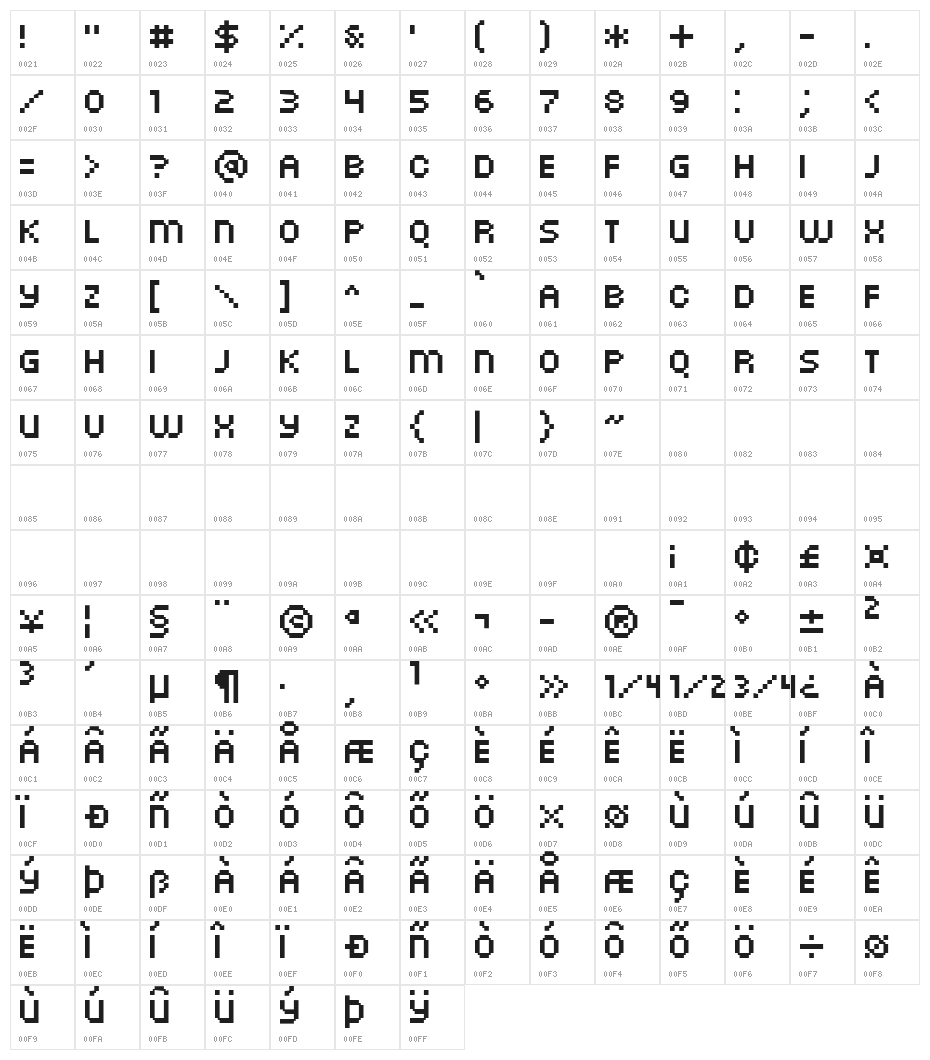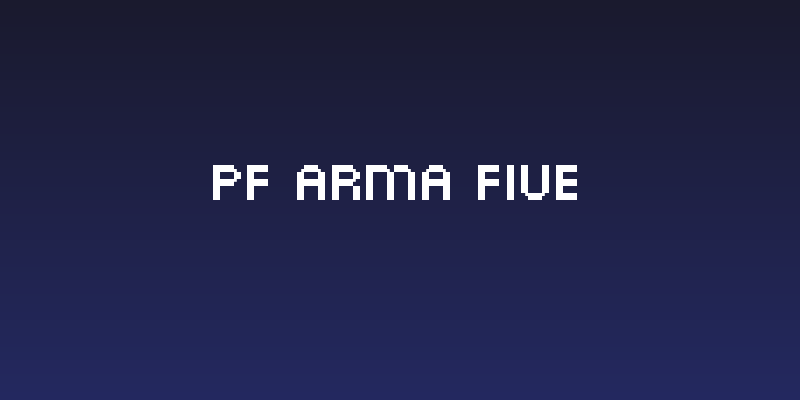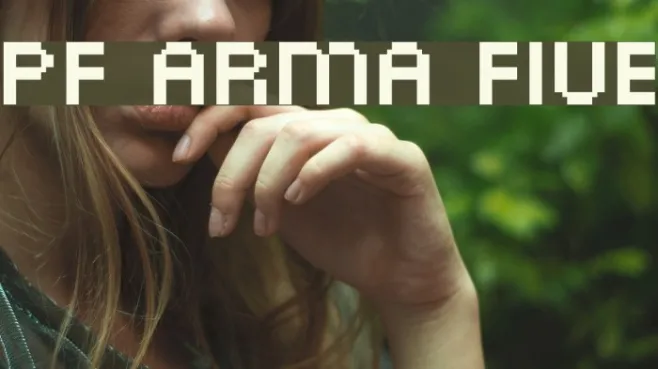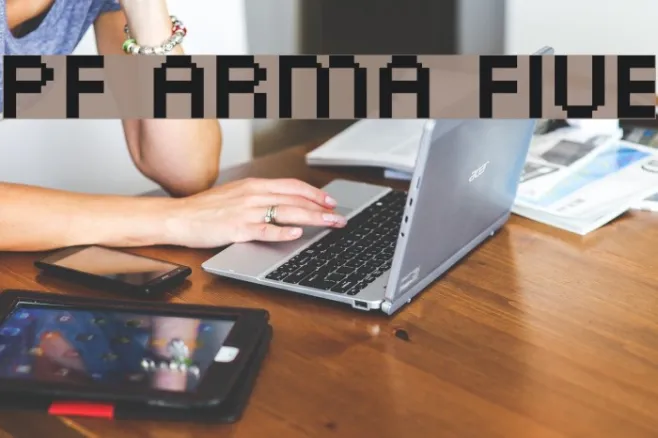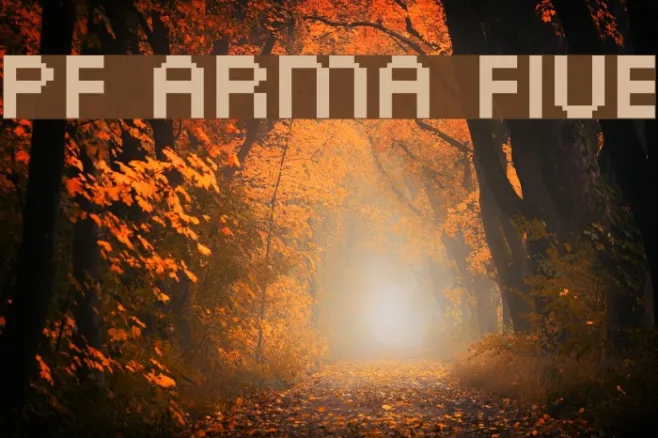
PF Arma Five Font
PF Arma Five Description
This font features a bold, pixelated style reminiscent of early digital displays and retro video games. Each character is composed of square blocks, giving it a distinct, grid-like appearance. The uppercase and lowercase letters maintain a consistent height, enhancing its uniformity and readability. Numbers and special characters follow the same blocky design, ensuring a cohesive look across all glyphs. The font's geometric structure and lack of curves make it ideal for projects that aim to evoke nostalgia or a digital aesthetic.
| Use Case | Headlines, Logos, Digital Art |
| Proposed Projects | Ideal for video game design, retro-themed posters, digital art projects, and any creative work that seeks a nostalgic or tech-inspired look. |